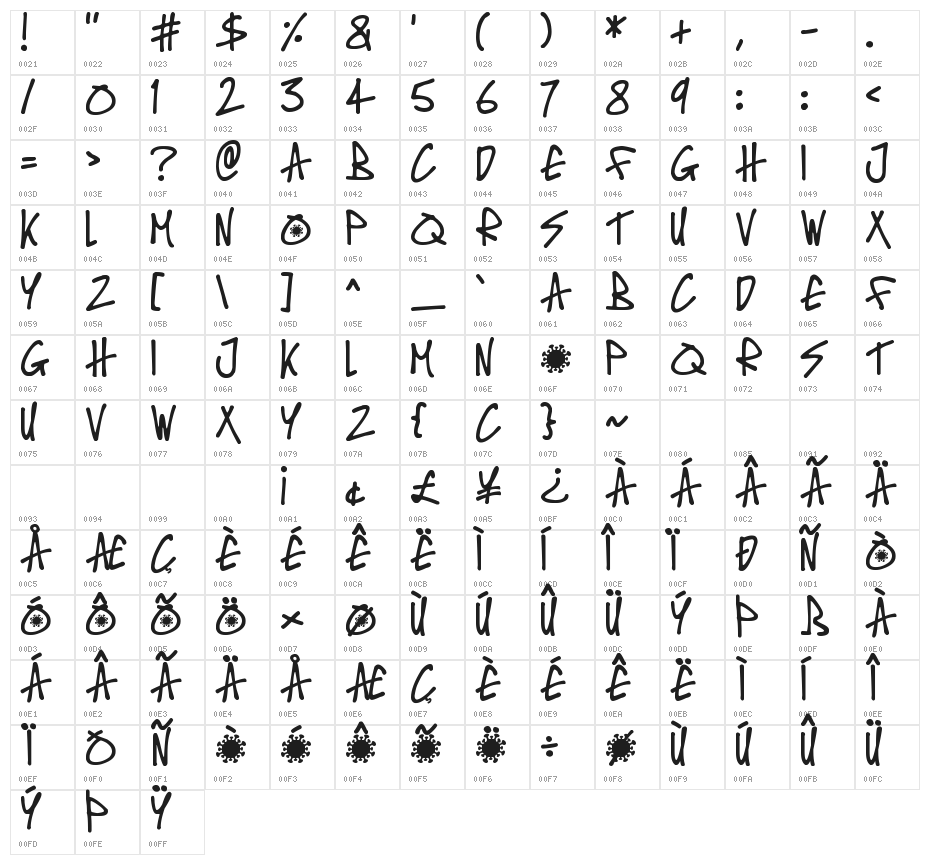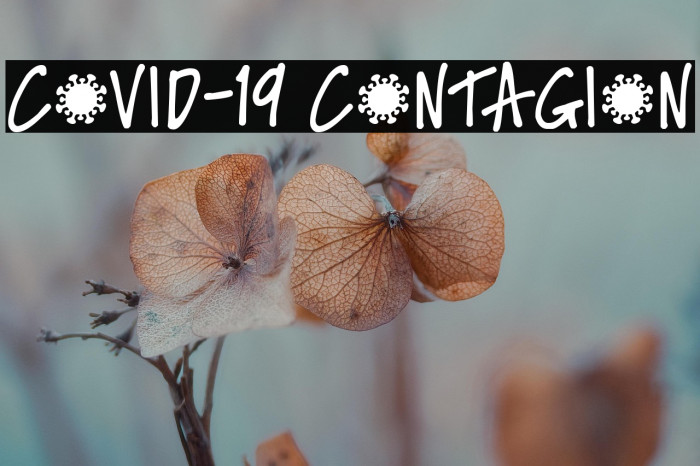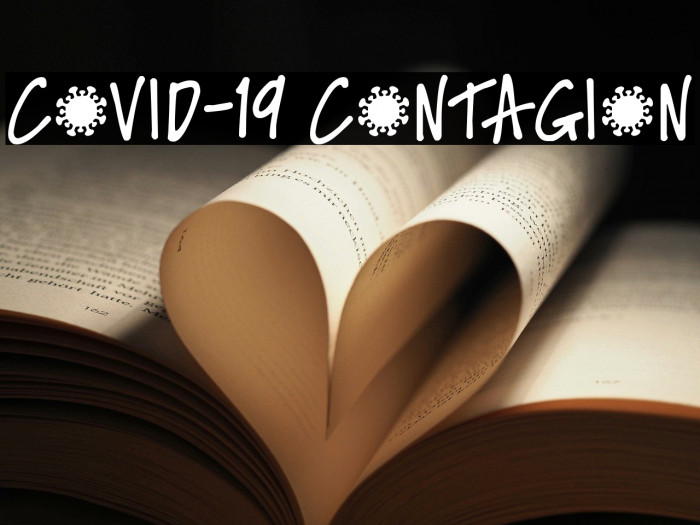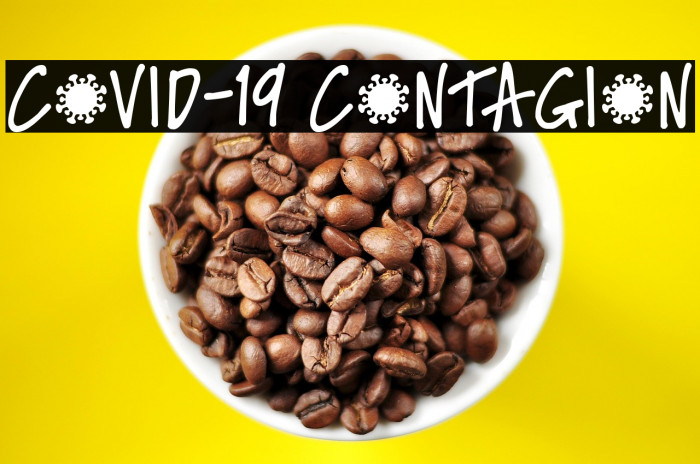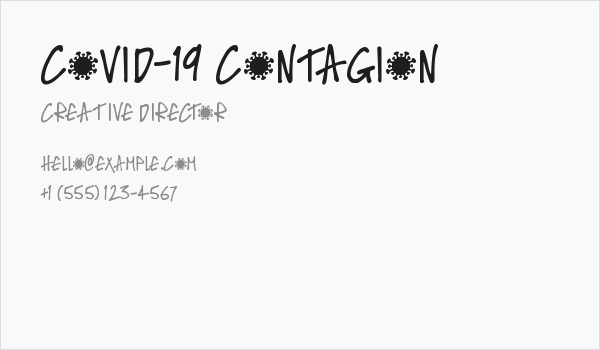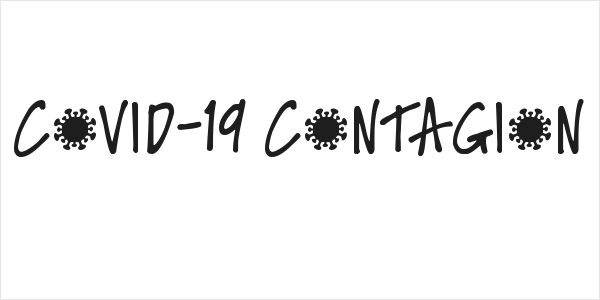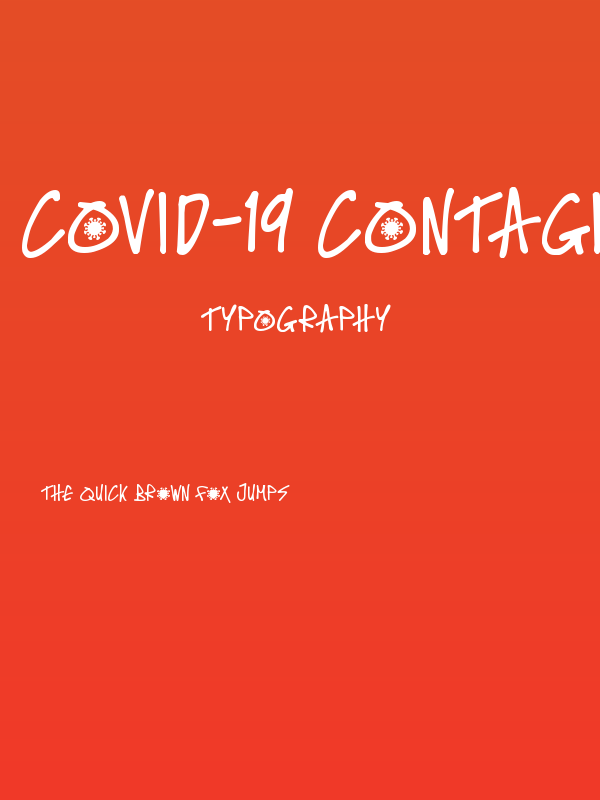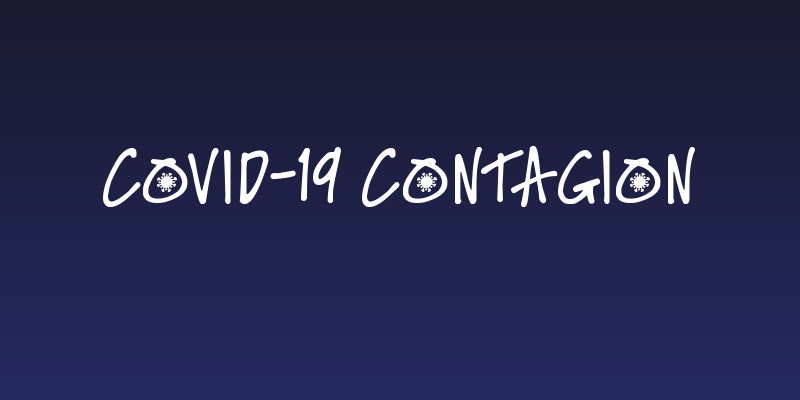
Covid-19 Contagion Font
Covid-19 Contagion Description
This font features a playful and informal handwritten style, characterized by its bold and slightly irregular strokes. The letters have a casual, dynamic appearance, with varying line thickness that adds a sense of movement and energy. The inclusion of virus-like symbols within the letters adds a unique thematic element, making it particularly distinctive. The numbers and special characters maintain the same lively and informal aesthetic, ensuring consistency across all glyphs. This font is well-suited for projects that require a touch of whimsy or a personal, handwritten feel.
| Proposed Projects | Ideal for posters, children's books, educational materials, and themed event invitations. |